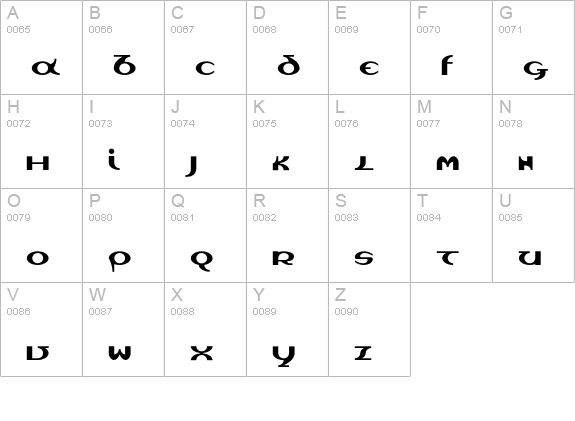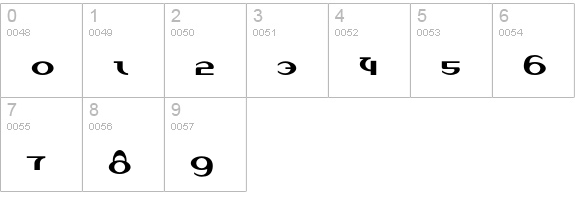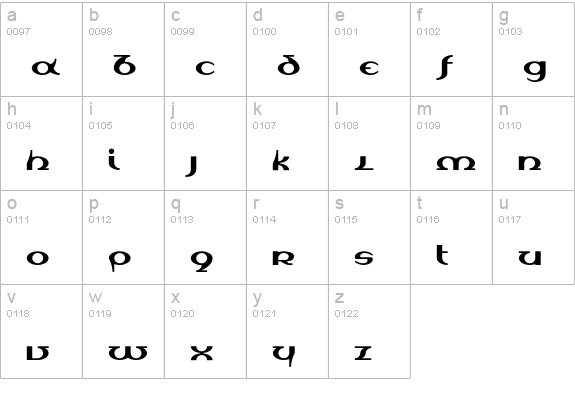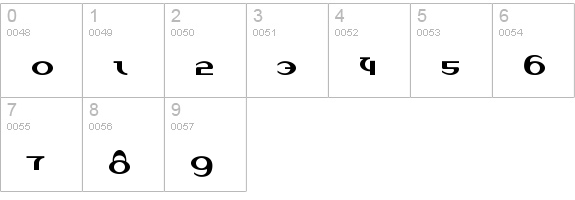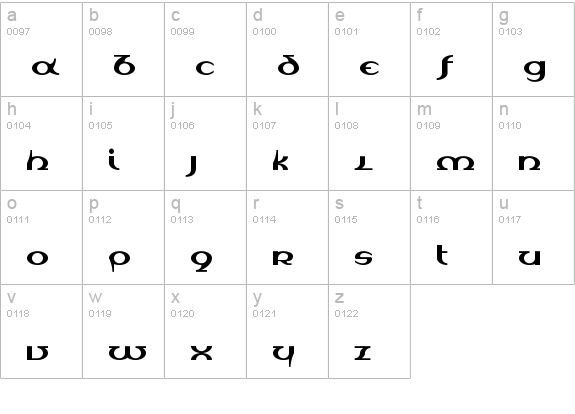
Unica Font Details
Unica font is a beautiful and versatile typeface that will bring elegance and sophistication to any design project. With its clean lines and smooth curves, Unica font is perfect for everything from logos and branding to headlines and body text. What sets Unica font apart is not just its stunning design, but also its accessibility. This font is available for free, making it a fantastic option for designers on a budget or anyone looking to add a touch of class to their work without breaking the bank. Unica font is freely available to download at FontsMarket.com, a leading online platform for high-quality fonts. With just a few clicks, you can have this exceptional typeface in your design arsenal, ready to elevate your creations to new heights. Whether you're working on a website, a magazine layout, a packaging design, or any other project, Unica font will effortlessly enhance your visual communication. Its versatility allows it to adapt to a wide range of styles and themes, making it a go-to choice for designers worldwide. With Unica font, you can confidently create eye-catching designs that grab attention and leave a lasting impression. Its timeless appeal and professional aesthetic make it suitable for both traditional and modern applications. Don't miss out on the opportunity to enhance your designs with the elegance and beauty of Unica font. Download it for free today at FontsMarket.com and unleash your creativity like never before.